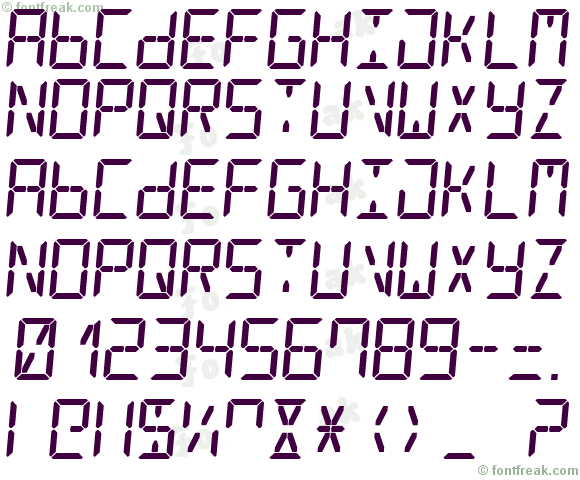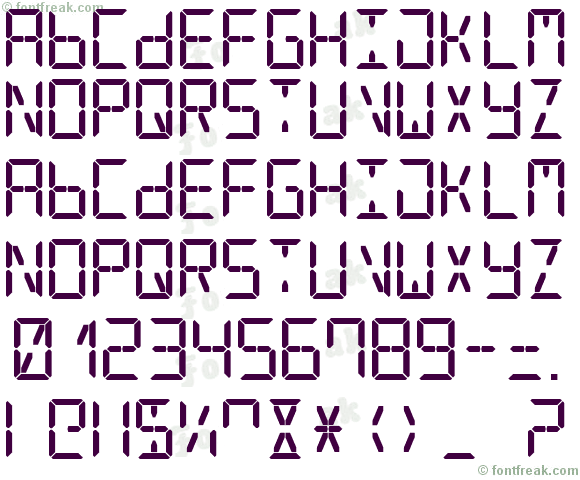
Digital Counter 7 Italic
Digital Counter 7
About Digital Counter 7 Italic
Digital Counter 7 Italic is a striking display font developed by Style-7, categorized under the digital font style. This unique typeface features a distinctive pixelated aesthetic reminiscent of vintage digital displays, making it ideal for projects that aim to evoke a sense of nostalgia or technological flair. The font exhibits a consistent stroke weight, creating a clear and legible presentation, while its italic style adds a dynamic quality that enhances movement and urgency in design. The spacing between characters is well-balanced, ensuring readability at various sizes.
Best suited for use cases that require a bold statement, Digital Counter 7 Italic excels in areas such as video game graphics, tech-related promotional materials, and digital signage. Additionally, it can be effectively employed in event flyers or posters where a modern, edgy look is desired. Graphic designers looking to capture a retro-futuristic vibe will find this font particularly appealing, as will small business owners wanting to create eye-catching advertisements that stand out in a crowded marketplace.
The target audience for Digital Counter 7 Italic includes graphic designers, content creators, and marketing professionals who appreciate innovative typography. With its freeware license, this font offers accessibility to those who wish to incorporate its unique style into their projects without financial constraints.
What sets Digital Counter 7 Italic apart is its ability to blend modernity with retro charm. Its unique design not only grabs attention but also communicates a sense of technological innovation. For those seeking a distinctive typeface that stands out in any design, the Digital Counter 7 Italic font free download is an excellent choice that enhances creativity and expression.